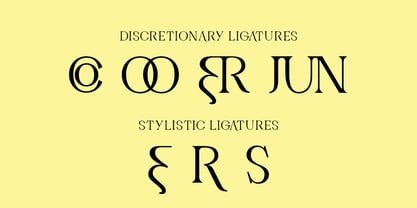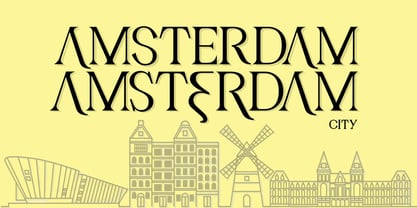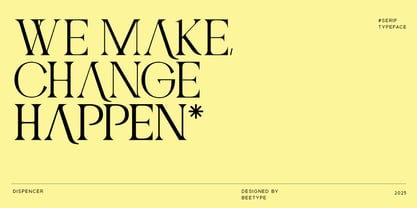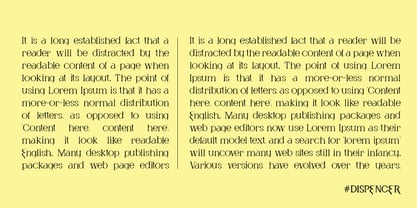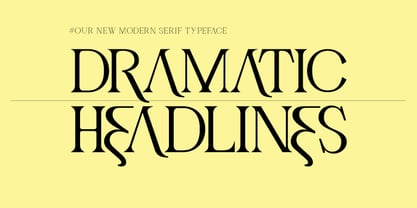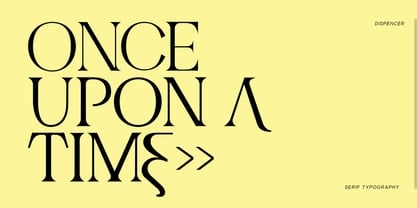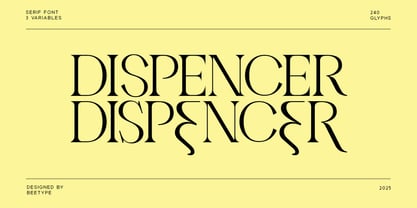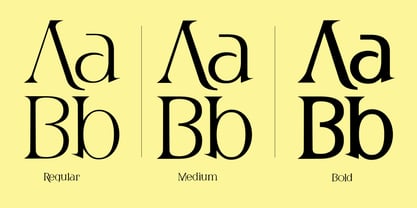
Dispencer
by BeeType
The Dispencer Font Family was designed by Alex Jones, Shajana Shaju and published by BeeType. Dispencer contains 3 styles and family package options.
Dispencer is a Brand New, Elegant Serif Typeface. It has a dependable and uncompromising style, with controlled letterforms and modern touches. It looks amazing in logos, magazines, and movies. Dispencer Font would be perfect for branding, headlines, Captions, paragraphs, and posters. It's created to make an impression without sacrificing its beauty and readability. It's shown a clean, minimalist, warmth, quirky, yet still purposeful to be versatile.
The Typeface includes 3 Weights - Regular, Medium, and Bold. All offer wide language support, upper and lower cases, numerals and extended punctuation.